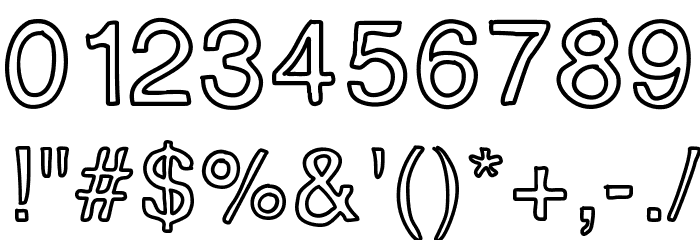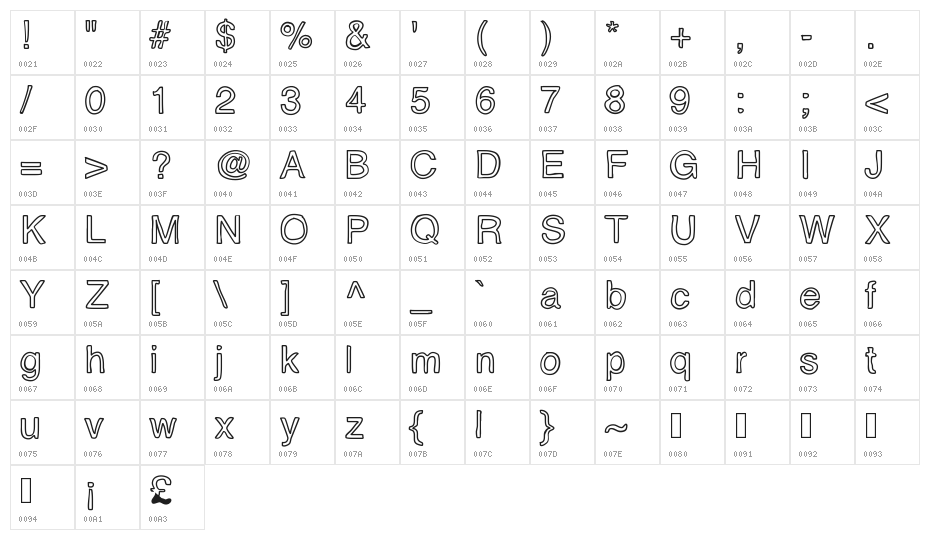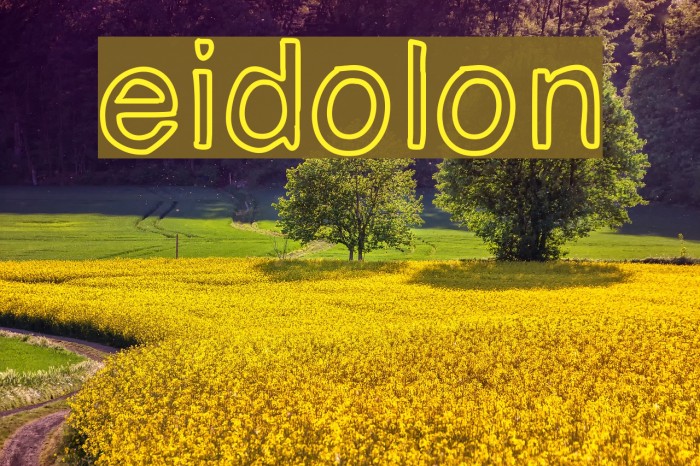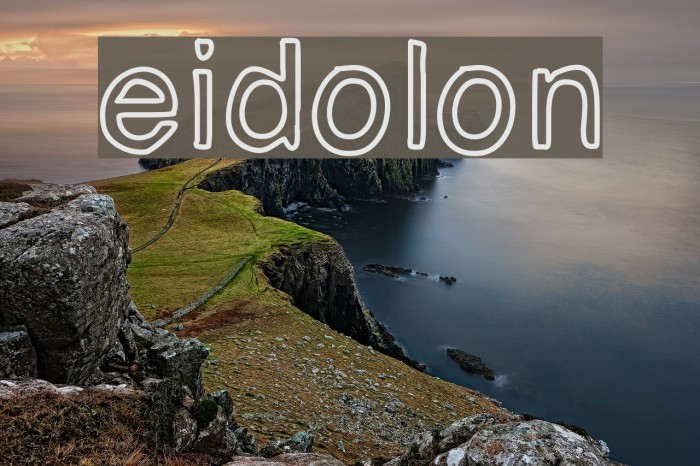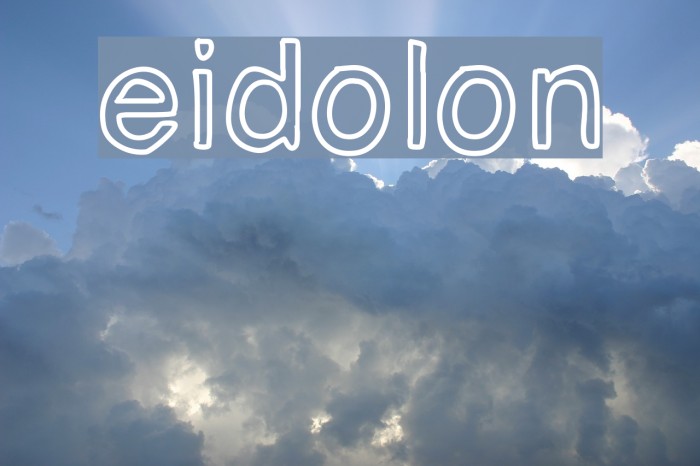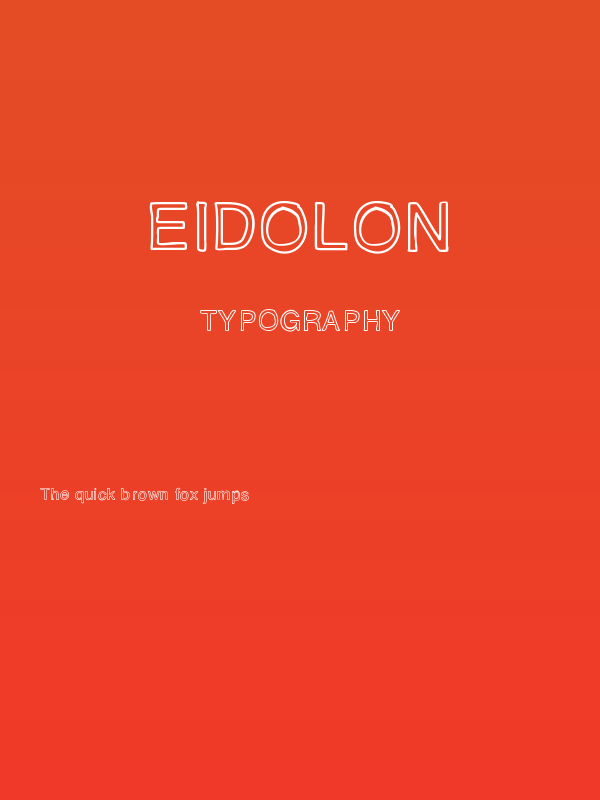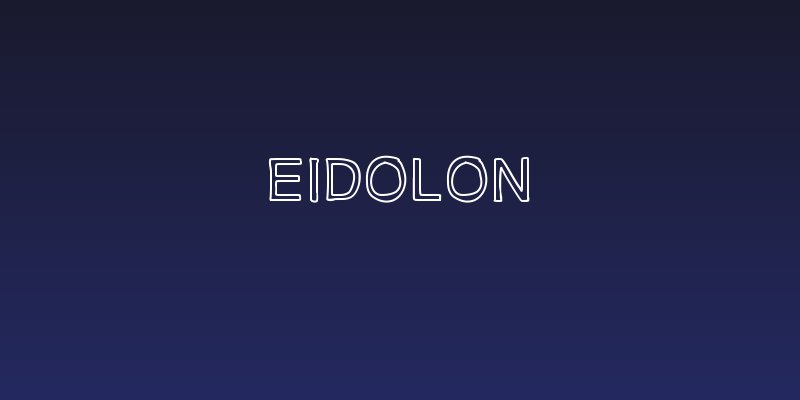
eidolon Font
eidolon Description
This font features a clean, modern outline style with a geometric structure. The uppercase and lowercase letters maintain a consistent width, creating a harmonious and balanced appearance. The characters are well-defined with smooth curves and straight lines, making them highly legible. The numbers and special characters follow the same design principles, ensuring uniformity across all glyphs. This font's open and airy design gives it a contemporary feel, suitable for a variety of applications.
Proposed ProjectsIdeal for branding, headlines, posters, and digital media where a modern and clean aesthetic is desired.